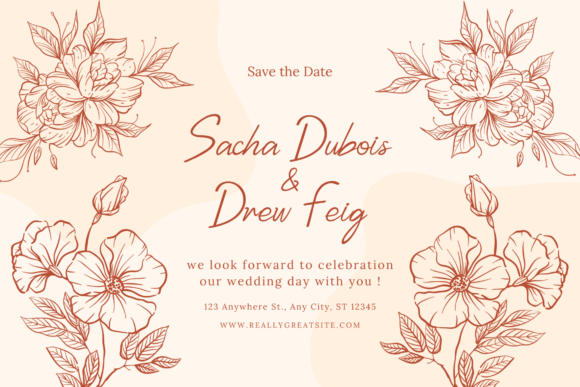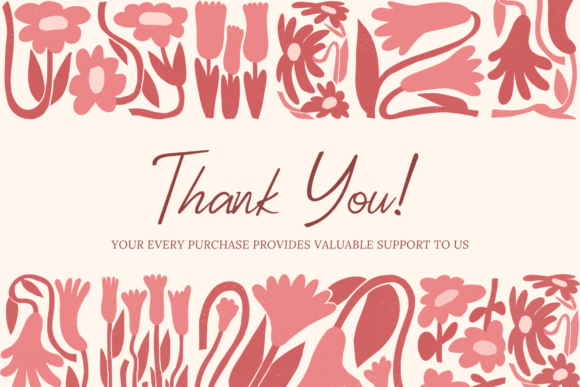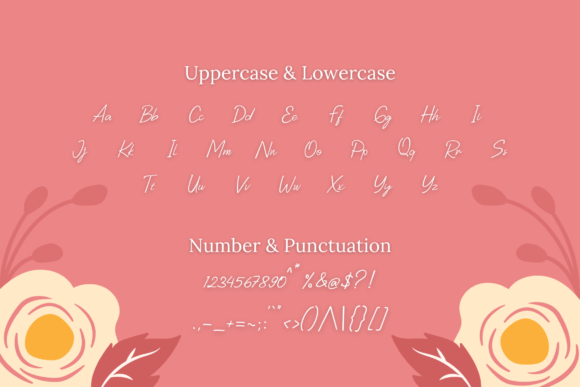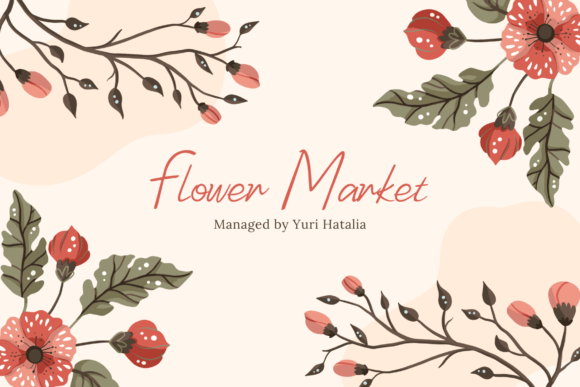
A Sweet Addition to Your Design Toolbox
There’s nothing quite like the thrill of creating something special for a loved one – a handmade card, a personalized gift, or a wedding invitation that truly captures the essence of the occasion. For designers and crafty enthusiasts alike, finding the perfect font can be the key to making that special something truly unforgettable.
Enter the Aysiteruyo Font, a charming and versatile handwritten font that’s sure to add a touch of sweetness and friendliness to any design. Whether you’re crafting wedding invitations, cards, or any other project that needs a fun and playful vibe, this font is the perfect companion. Its value lies not only in its aesthetic appeal but also in its versatility, making it a valuable addition to any designer’s toolkit.
Aysiteruyo Font Key Features
- Unique Characteristic: Features a unique blend of modern and traditional Japanese typography, making it suitable for a wide range of applications.
- Font Weight: Available in regular, bold, and italic weights to provide flexibility in typography.
Aysiteruyo Font Review
I’ve had the chance to work with the Aysiteruyo font, and I must say it’s a unique addition to any design project. Here are my honest thoughts:
✨ The font’s elegant and modern design makes it perfect for creating a sophisticated and stylish look in any digital product or print material. The font’s clean lines and subtle curves add a touch of refinement to any text.
✨ Aysiteruyo is highly legible, making it easy to read even at smaller font sizes. This makes it an excellent choice for body text or headings in a variety of contexts.
✨ The font’s versatility allows it to work well in both digital and print applications, making it a great all-around choice for designers.
⚠️ One of the main limitations of the Aysiteruyo font is its limited character set. While it includes a wide range of Latin characters, it’s missing some of the more exotic characters that designers may need for international projects.
⚠️ The font also lacks bold and italic weights, which may limit its use in certain design applications.
Overall, the Aysiteruyo font is a solid choice for designers looking for a modern and elegant font. While it has some limitations, its strengths make it a great addition to any design project.
Some potential uses for the Aysiteruyo font include:
- High-end digital products
- Print materials like business cards and brochures
- Headings and titles in various design projects
Aysiteruyo font is a modern and elegant font that is perfect for creating eye-catching designs. Use it for:
– Headings and titles
– Logos and branding
– Creative projects and art
Getting the Most Out of Aysiteruyo Font
To get the most out of Aysiteruyo font, experiment with different font sizes, styles, and combinations with other fonts. Use it to create contrast and visual interest in your designs.
Alternatives to Aysiteruyo Font for Designers
Playfair Display is a high-end serif font ideal for luxury and high-end branding. It’s perfect for creating a sophisticated and elegant look. When to use: Headlines, titles, and luxury branding. Compared to Aysiteruyo Font, Playfair Display has a more classic and traditional feel, while Aysiteruyo Font has a more modern and quirky touch.
Great Vibes is a beautiful script font that’s perfect for creating a warm and inviting atmosphere. It’s ideal for branding, packaging, and editorial design. When to use: Logos, branding, packaging, and editorial design. Compared to Aysiteruyo Font, Great Vibes has a more elegant and sophisticated feel, while Aysiteruyo Font has a more playful and quirky touch.